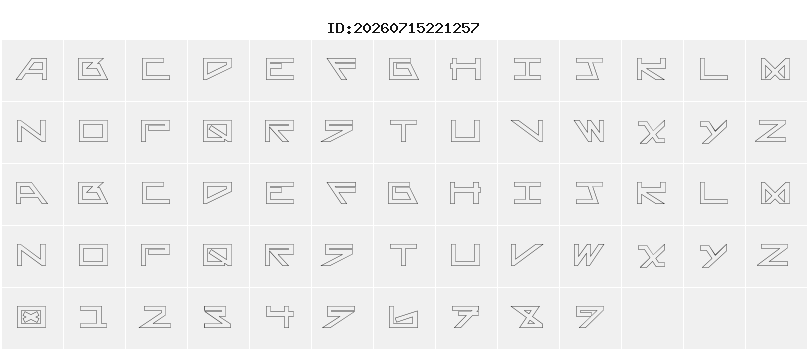
• Designer: Max Infeld Xerographer Fonts
• Manufacturer: Xerographer Fonts
• Description: Made by Xerographer Fonts in Chico,California
About AsteriskHollowBold.ttf
AsteriskHollowBold.ttf is a modern, elegant sans-serif font designed for ultimate readability and visual harmony. Perfect for branding, headlines, web design, and print materials.